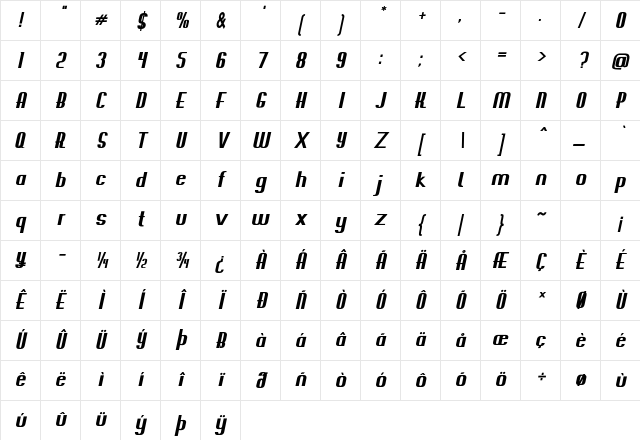
Poolie is a composed and adaptable typeface that performs quietly and consistently across a wide range of design contexts. The slanted form adds forward momentum and visual energy. Its bold stroke weight gives it real presence on the page.
Pro Tip: Use Poolie for emphasis, pull quotes, and subheadings where its slanted energy can add rhythm to the layout.